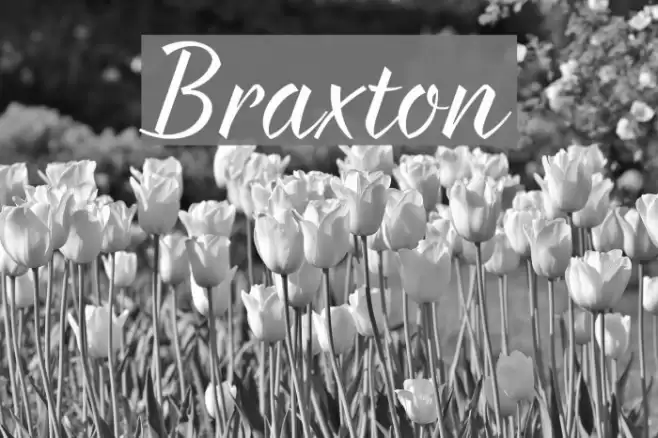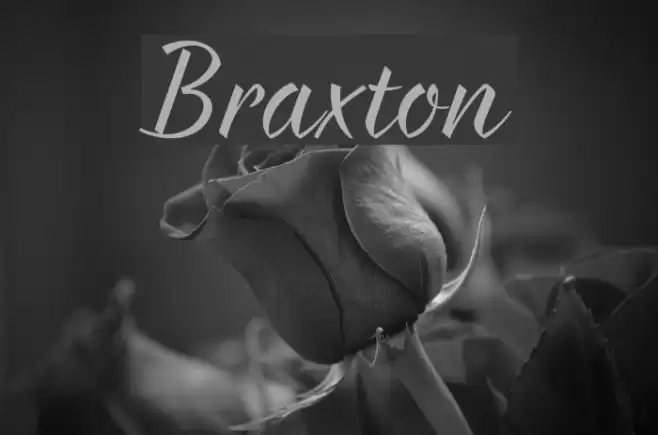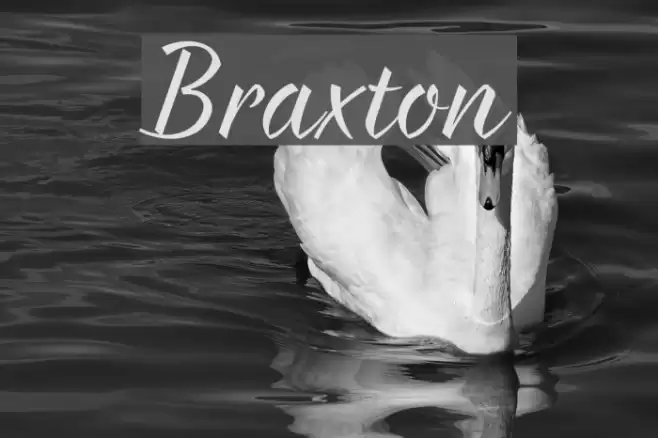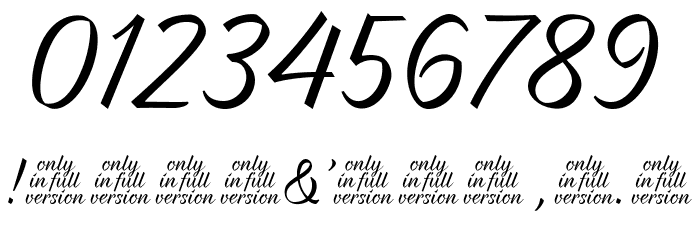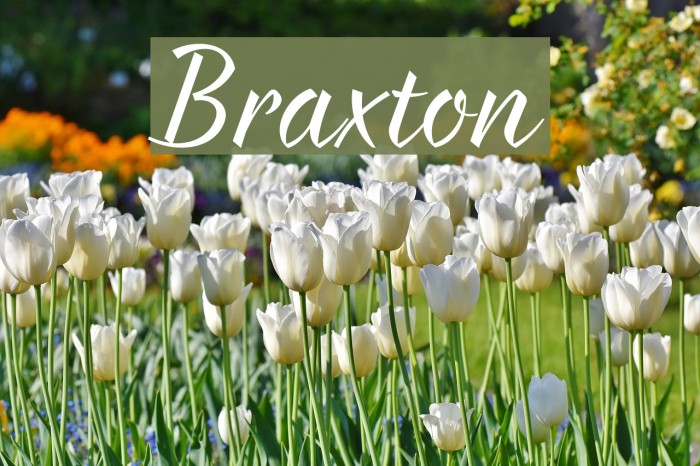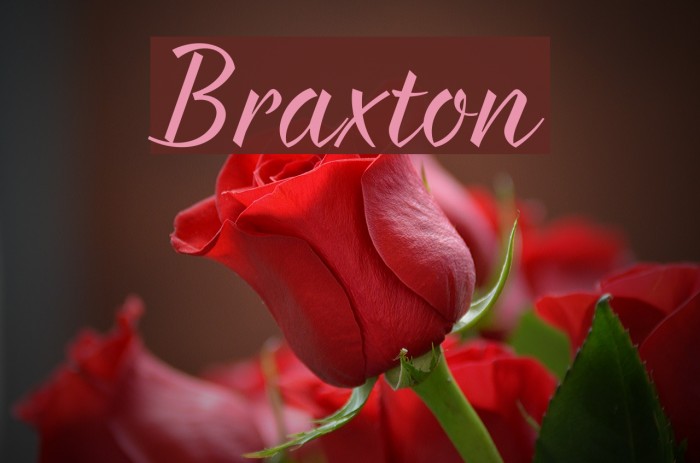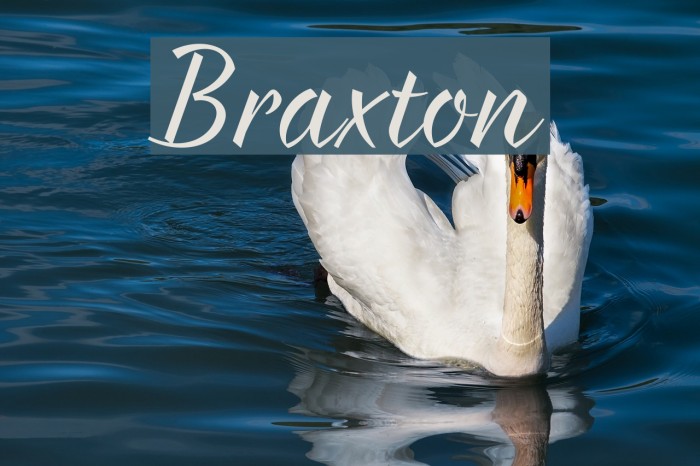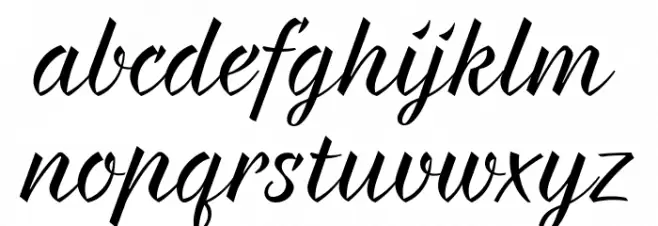
Braxton Font
Braxton Description
This font exudes a classic and elegant style with a modern twist. The characters are crafted with a slight slant, giving it an italicized appearance, yet maintaining a clear and readable form. The uppercase letters are bold and commanding, while the lowercase letters offer a smooth and flowing script-like quality. The numerals are distinct and well-proportioned, ensuring clarity in numerical data. Special characters are included, enhancing its versatility. The overall design is sophisticated, making it suitable for formal and decorative applications.
A classic, elegant font with a modern italicized style from Uncategorized fonts.
- Proposed Projects: Ideal for wedding invitations, elegant branding, luxury product packaging, and sophisticated editorial design.
- Overall Style: Classic
- Use Case: Logos, Invitations, Editorial design